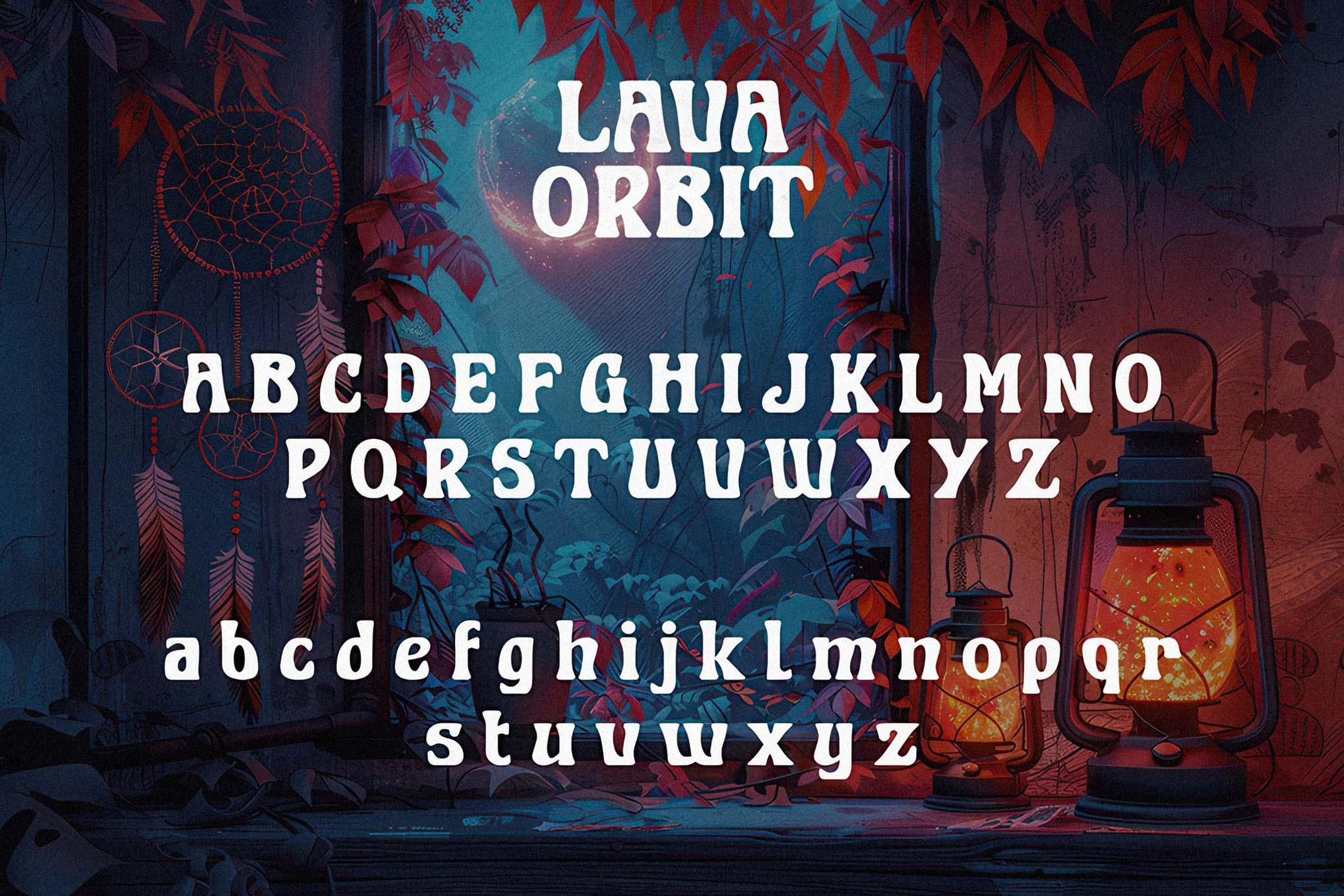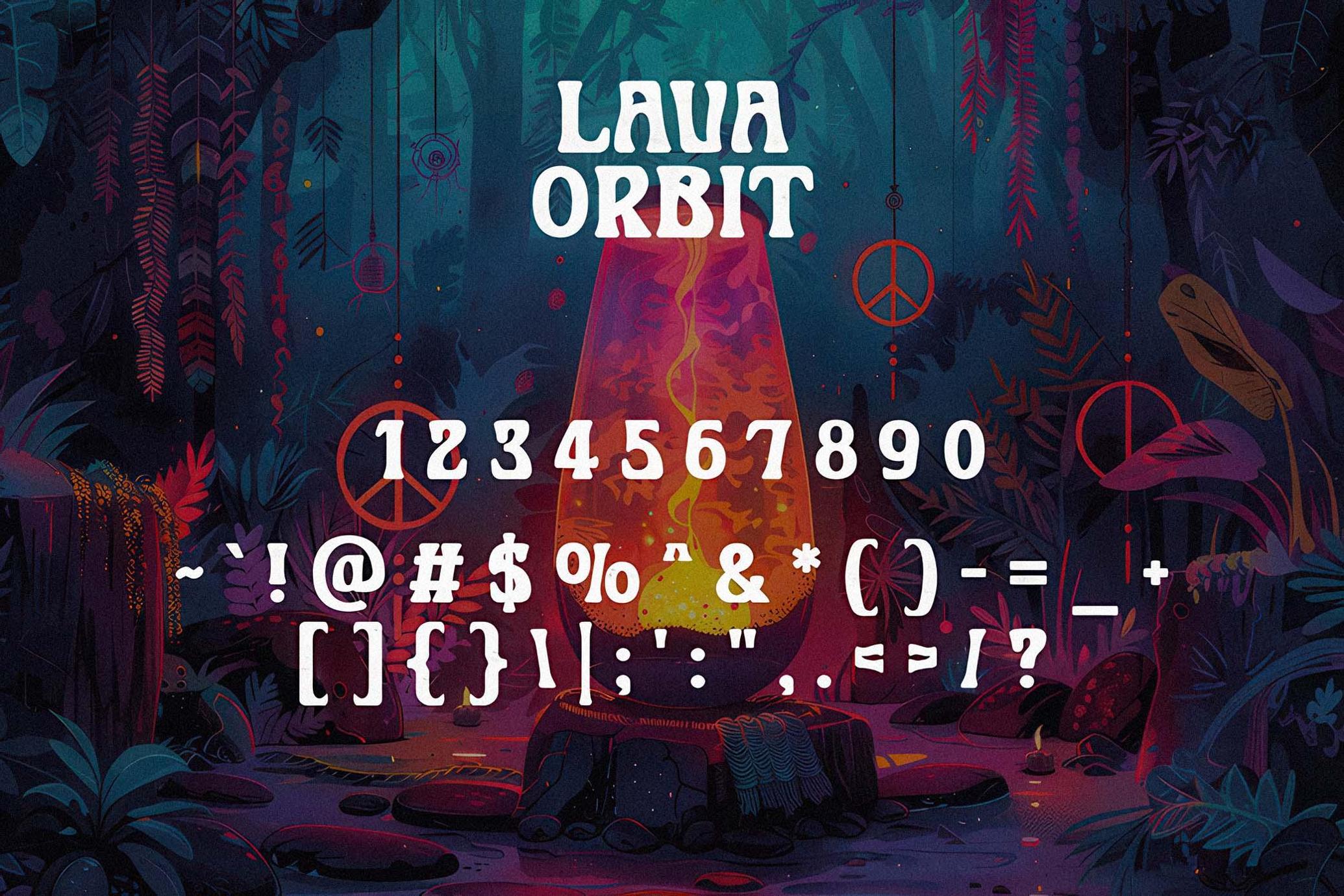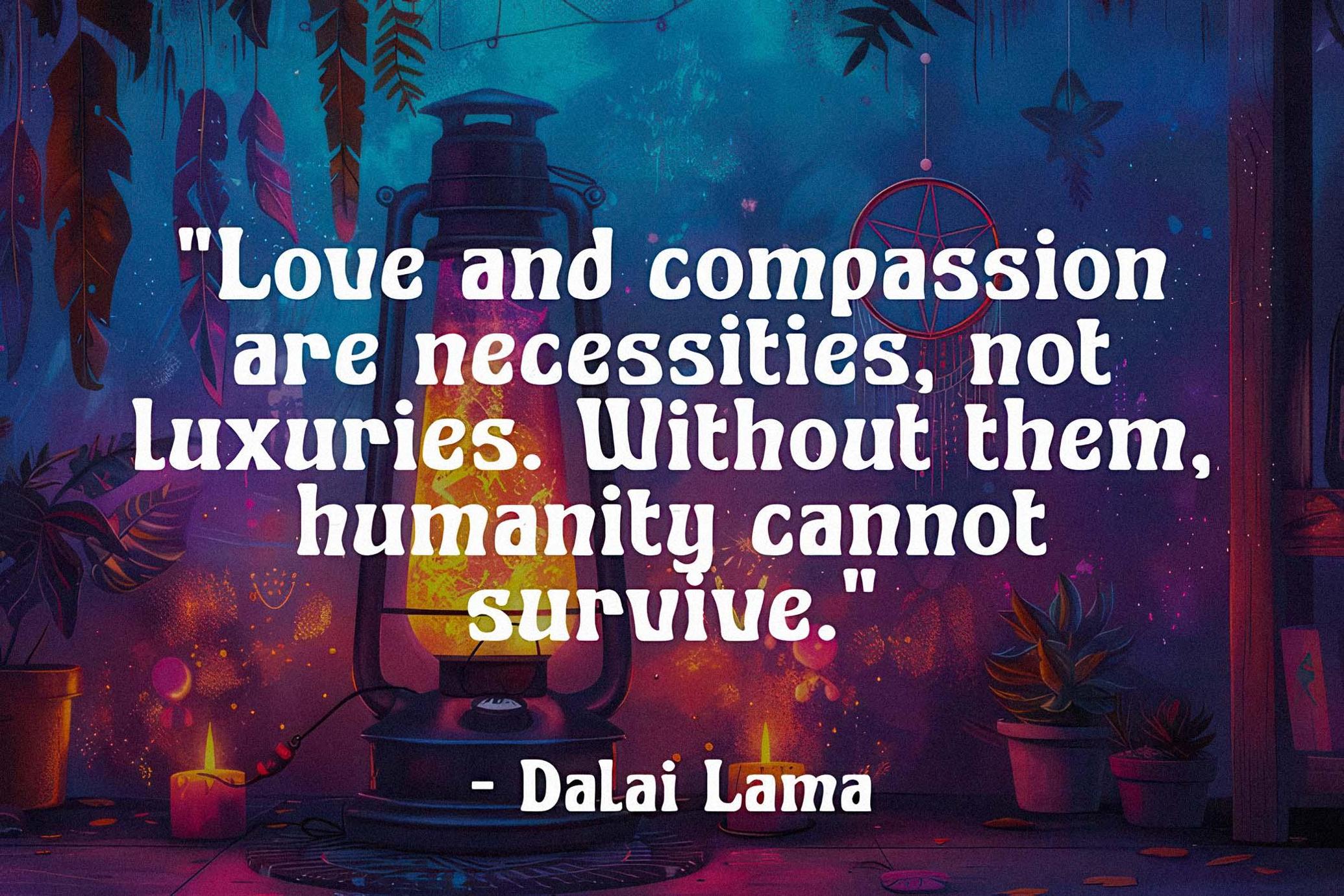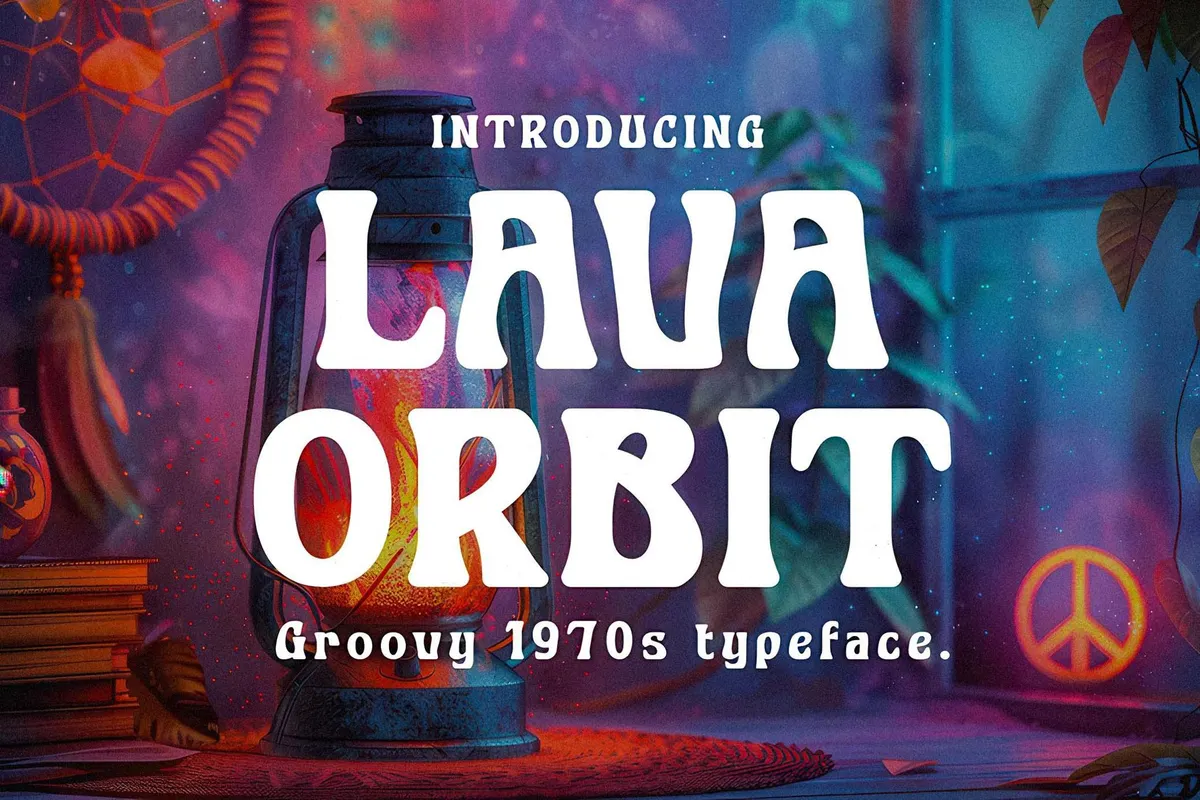
Lava Orbit - Surreal 1970s Typeface
Introducing Lava Orbit, a far-out typeface inspired by the iconic lava lamps of the 1970s. Dive into the groovy era with a typeface that captures the free-spirited, vibrant essence of the decade we should never forget. Lava Orbit brings the funky, fluid shapes of lava lamps to life in your designs, making every project a nostalgic trip back in time.
Lava Orbit isn’t just a typeface; it’s a journey back to one of the most colorful and exciting decades in history. Whether you’re looking to invoke nostalgia or simply want to add a unique, playful touch to your designs, Lava Orbit is the perfect choice.
Step into the groove with Lava Orbit Typeface and let your designs flow with the psychedelic energy of the 70s.